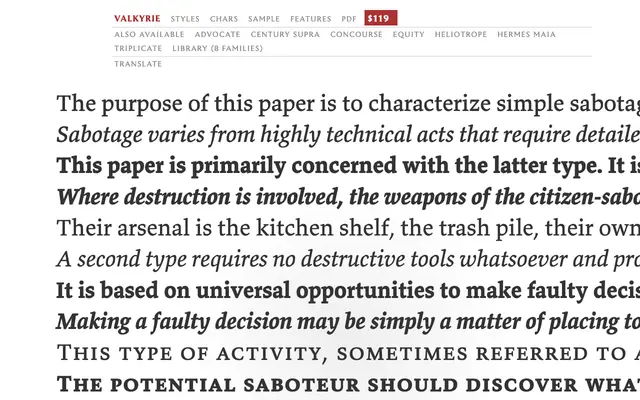
Valkyrie
A transitional serif from MB Type designed for long-form document and book typography across screen and print.
Valkyrie is a text serif aimed at legal, academic and book work where sustained readability is the primary concern. It sits within the MB Type library alongside Equity and Century Supra, a stable of faces built for typographically demanding documents. The design holds up at typical body text sizes on screen without sacrificing character at print resolutions.
Valkyrie has the structured, high-contrast characteristics of a transitional serif, designed for long-form text setting at screen and print sizes, consistent with MB Type's focus on book and document typography.